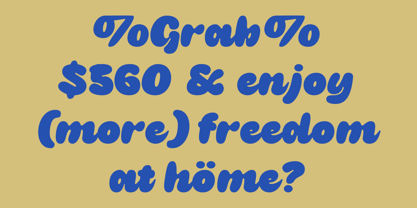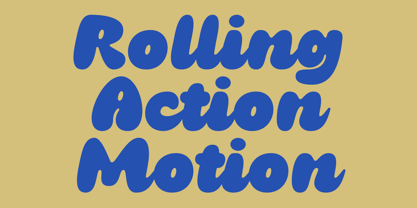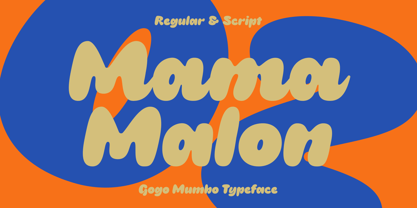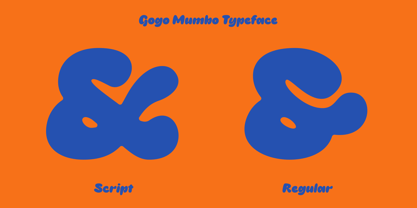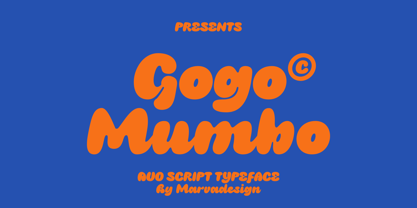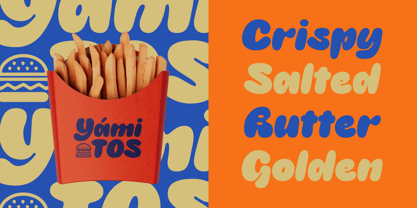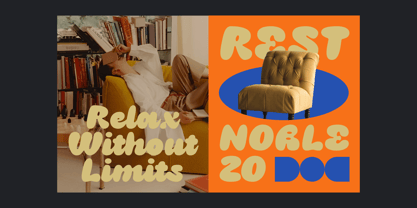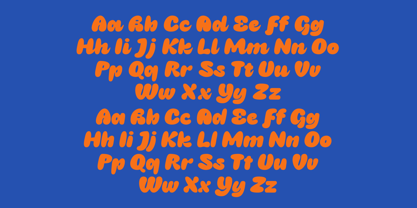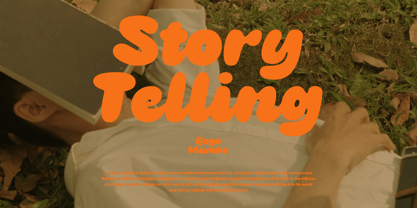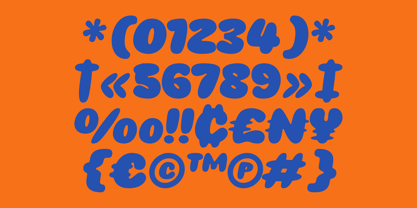
Gogo Mumbo
by Marvadesign
The Gogo Mumbo Font Family was designed by Febrie Setiawan and published by Marvadesign. Gogo Mumbo contains 2 styles and family package options. More about this family
Gogo Mumbo presents a bold, playful display style characterized by its soft, rounded forms and thick, inflated strokes that create a friendly and approachable visual tone. The letterforms feature smooth curves with slightly irregular contours, giving it a handcrafted, organic feel while still maintaining strong readability at larger sizes. Its heavy weight and tight spacing enhance its impact, making it ideal for eye-catching headlines, posters, packaging, and branding projects that aim to convey warmth, fun, and personality. The family appears to include both regular and script-inspired variations, offering versatility in composition where the regular style provides solid, stable forms, and the script adds a more dynamic, flowing rhythm.
Designers: Febrie Setiawan
Foundry: Marvadesign